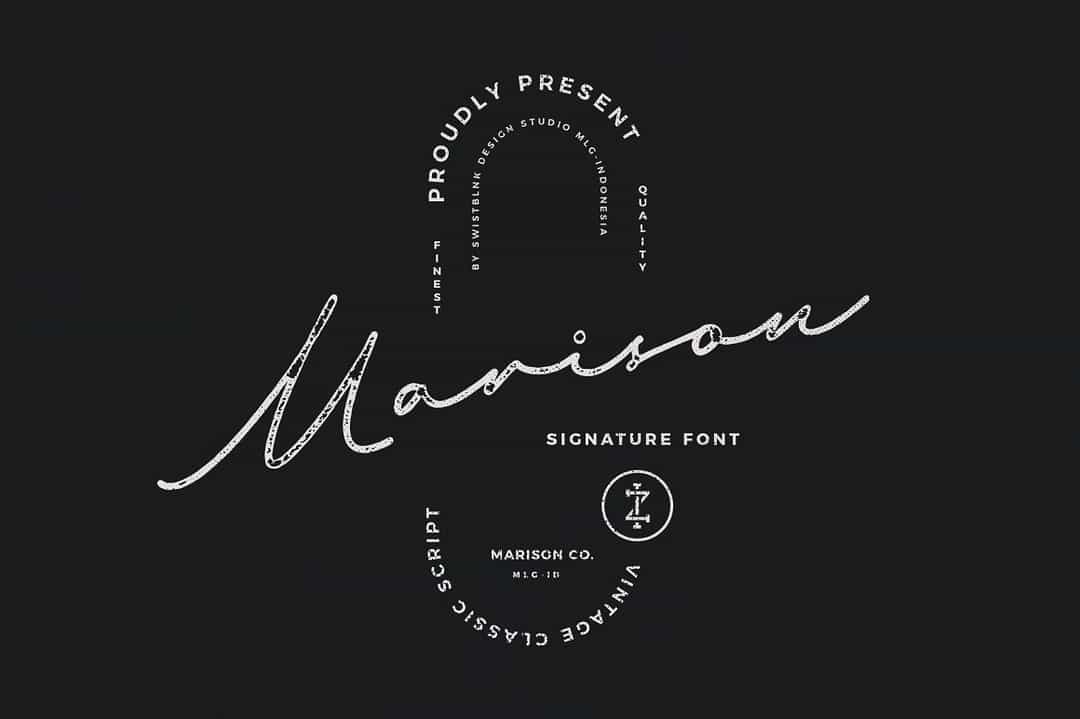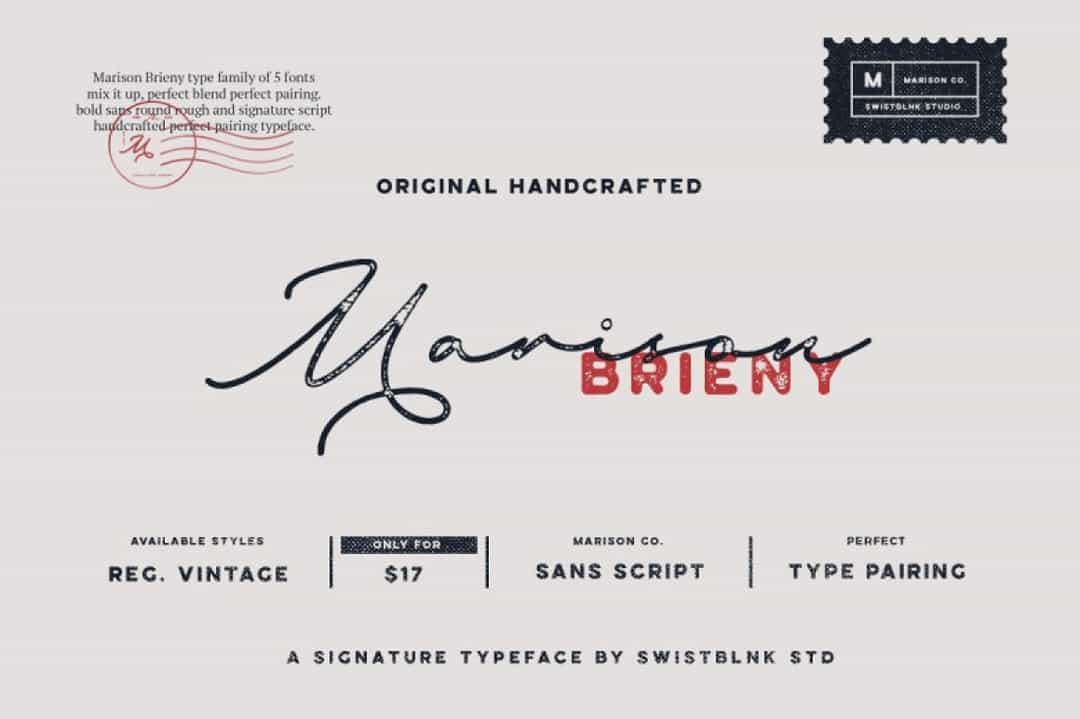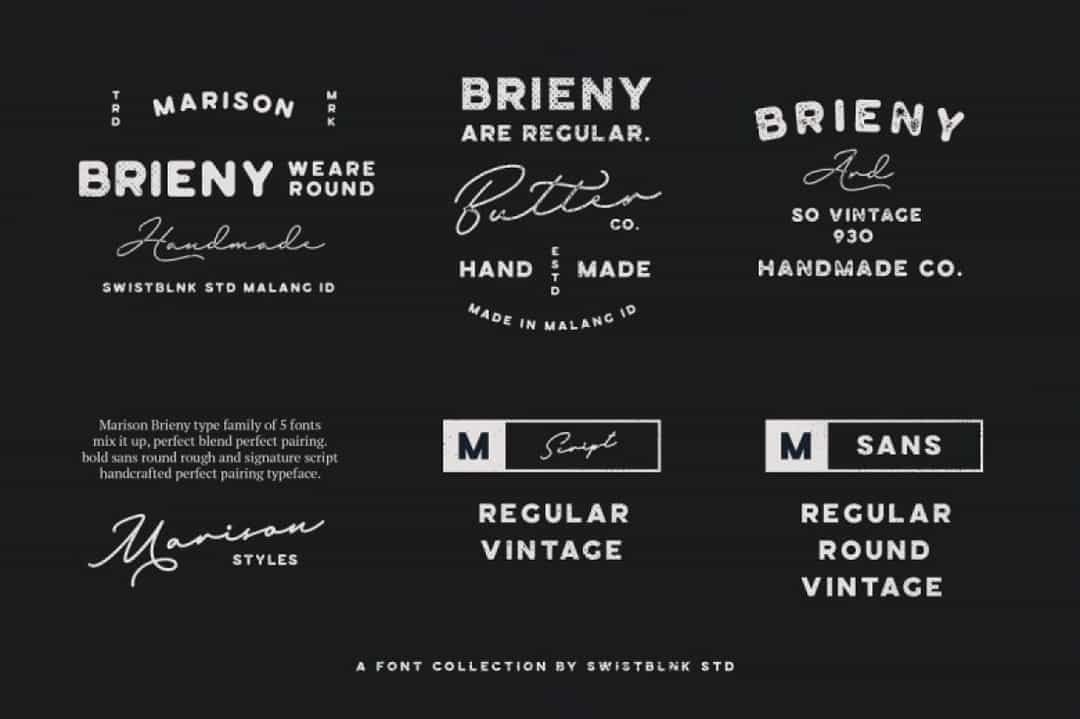
Marison Font Duo is a handwritten sans serif monoline font designed to offer a classic Modern aesthetic, making it suitable for titles, phrases, quotes or signatures, branding as well as general use.